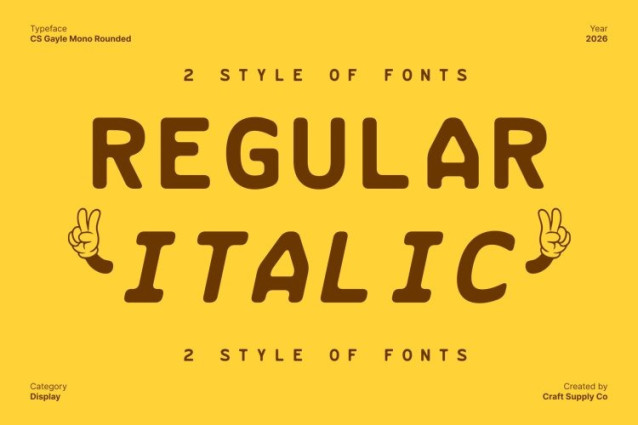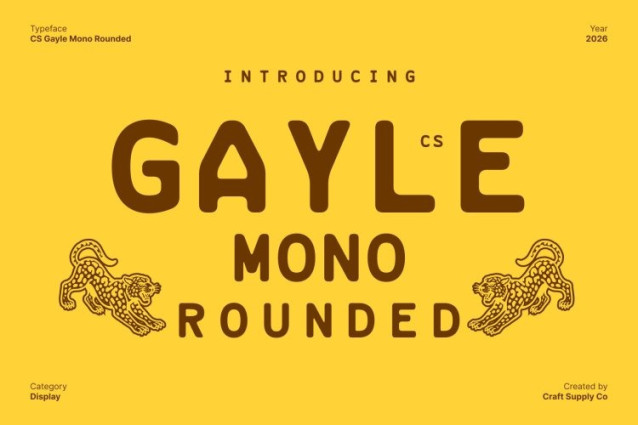
CS Gayle Mono Rounded Font
CS Gayle Mono Rounded Font This is a modern monospaced sans serif typeface designed to deliver clarity, balance, and ease of reading. Its clean construction and consistent letter widths ensure excellent legibility, while rounded corners soften the overall appearance, creating a calm and approachable visual tone.
Technical Precision with Friendly Character
Built for technical environments such as programming, documentation, and digital interfaces, this font maintains precision and structure without feeling rigid. The rounded shapes introduce a relaxed and friendly impression, making long-form text more comfortable to read while preserving a professional edge.
Modern, Soft, and Approachable
The combination of sharp alignment and smooth curves gives a modern aesthetic that feels clean, soft, and welcoming. It bridges the gap between functional typography and expressive design, making it suitable for both technical and creative applications.
Versatile for Digital and Creative Use
Beyond coding and tech-based projects, this font works beautifully for logos, branding, product packaging, headlines, cheerful posters, and greeting or invitation cards. Its relaxed yet structured style makes it a reliable choice for designs that require clarity, warmth, and modern appeal.